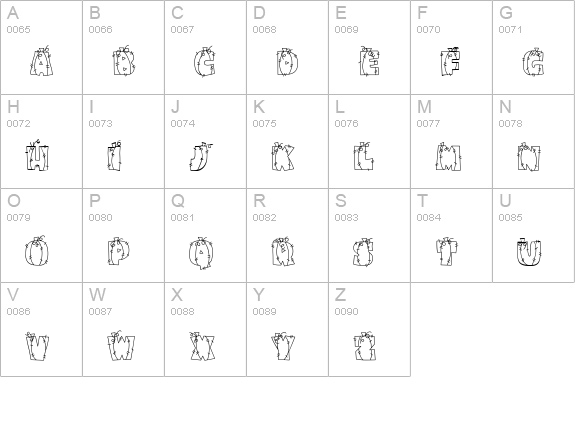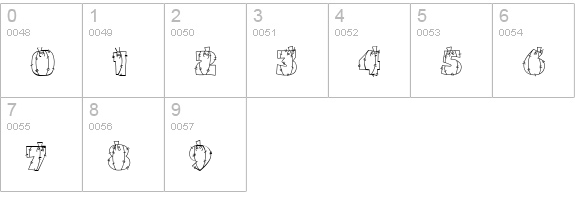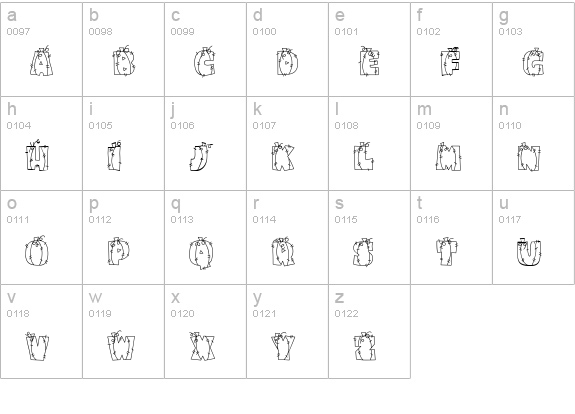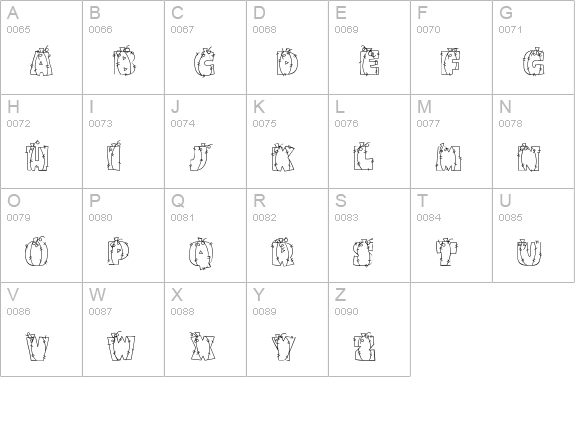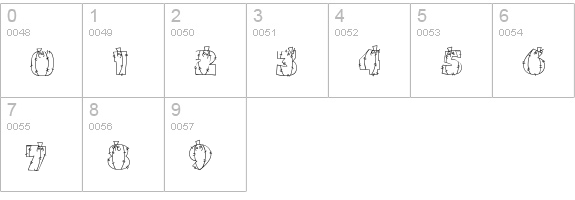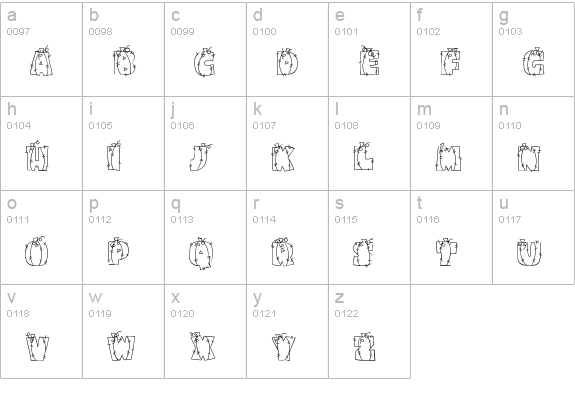
Introducing the charming and whimsical CK Pumpkin font! This delightful display typeface features a unique hand-drawn style that exudes warmth and friendliness. Perfect for adding a playful touch to your creative projects, CK Pumpkin is sure to bring a smile to your audience's faces. What's even better is that CK Pumpkin is completely free to download at FontsMarket.com! Embrace the festive spirit and let your creativity shine with this fun and versatile font. Whether you're designing invitations, posters, or social media graphics, CK Pumpkin is the perfect choice to add a touch of personality to your designs. Download it today and let your imagination run wild with this delightful typeface!